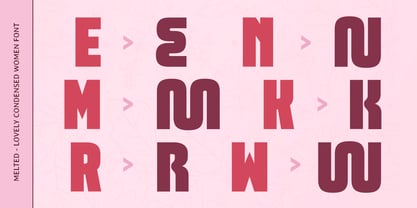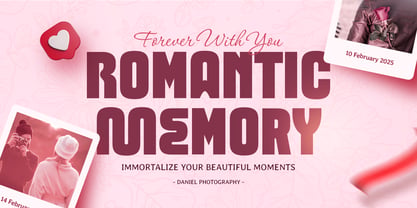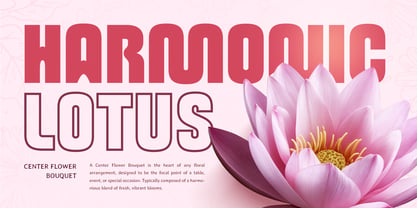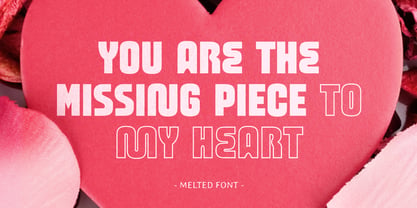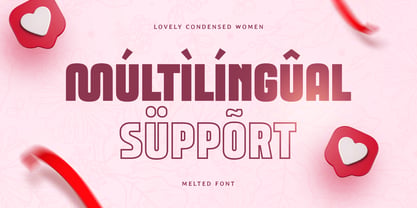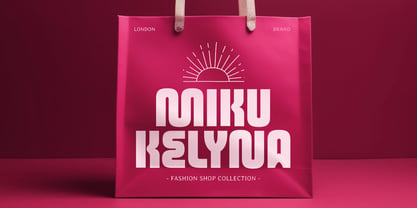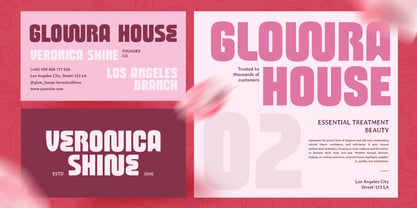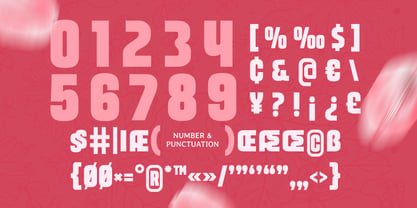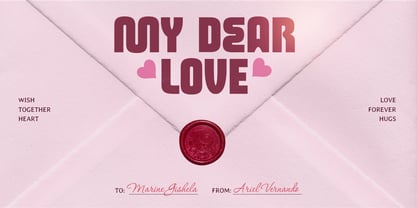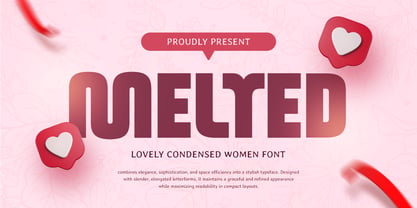
Melted
by Sensatype Studio
The Melted Font Family was designed by Zamroni Hamzah and published by Sensatype Studio. Melted contains 4 styles and family package options. More about this family
Melted - Lovely Condensed Women Font Melted is a lovely condensed serif font designed to celebrate femininity, elegance, and sophistication. With its slim, stylish letterforms and refined curves, this font brings a delicate yet confident aesthetic to any design, making it perfect for fashion brands, beauty products, wedding invitations, lifestyle blogs, and high-end editorial layouts. Its narrow proportions enhance readability while adding a graceful and contemporary touch to logos, social media graphics, luxury packaging, and magazine titles. Melted blends modern chic with timeless elegance, making it the ideal choice for designers who want to create a sophisticated and feminine look. Whether you're crafting a romantic branding concept, an elegant typography layout, or a stylish digital project, Melted is the perfect font for capturing beauty and confidence. Melted - Lovely Condensed Women Font Features: Elegant and feminine condensed serif design Unique Character with 4 Font Styles Inside Perfect for fashion, beauty, and lifestyle branding Punctuation, numbers, and symbols included All Uppercase letters OpenType features for enhanced typography Multilingual support for: Afrikaans, Albanian, Basque, Breton, Catalan, Croatian, Danish, Dutch, English, Estonian, Finnish, French, Galician, German, Hungarian, Icelandic, Indonesian, Irish, Italian, Latvian, Lithuanian, Luxembourgish, Maltese, Norwegian, Polish, Portuguese, Romanian, Slovak, Slovenian, Spanish, Swedish, Turkish, Welsh, and more. Embrace the beauty of elegance and femininity with Melted—the perfect condensed serif font for chic and stylish designs. Create with grace and confidence! ✨💖